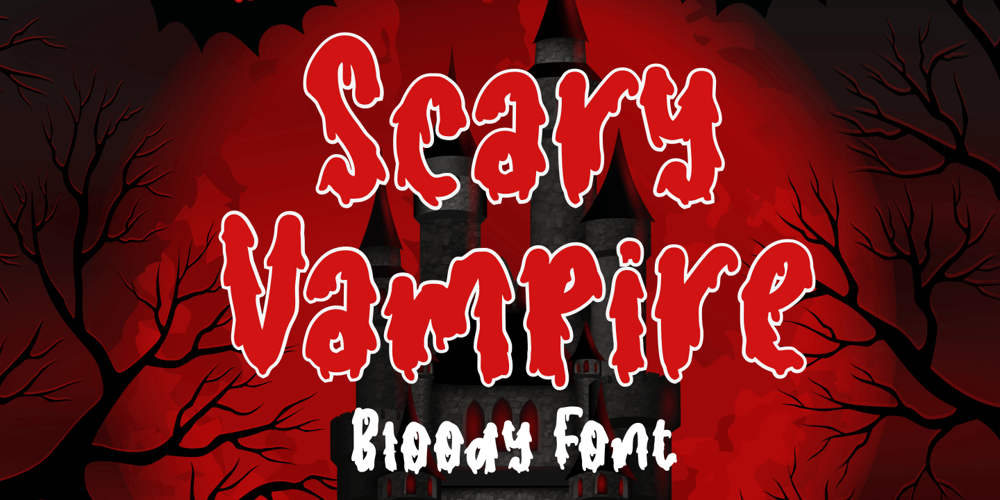
Scary Vampire
Scary Vampire font
Scary Vampire Font Family was designed by Muhamad Yusron Billah and published by Sronstudio. Scary Vampire contains 1 styles and family package options. Scary Vampire a bloody font that perfect for you any spooky project.Scary Vampire comes with uppercase and lowercase letters, multilingual symbols, numerals, punctuation.If you have any questions please don’t hesitate to drop me a message :)Thank You, Sronstudio